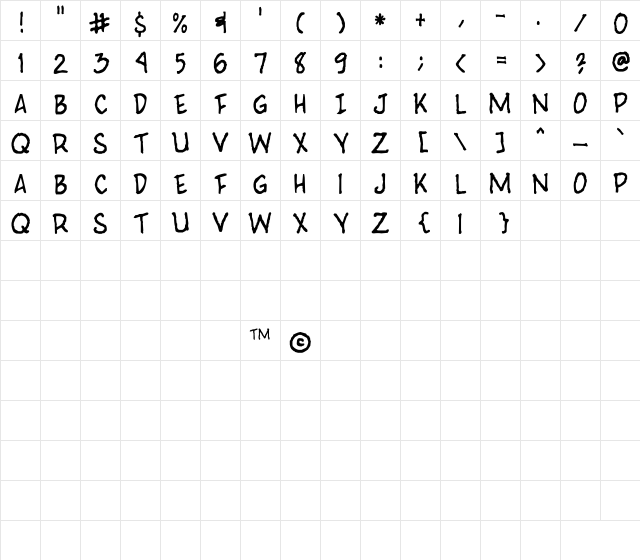
Cynosure ARTs Crack Comix Regular
Design Context for Cynosure ARTs Crack Comix
Cynosure ARTs Crack Comix is a composed and adaptable typeface that performs quietly and consistently across a wide range of design contexts.
Pro Tip: Use Cynosure ARTs Crack Comix in both headline and body roles to test its range before committing to a single application.